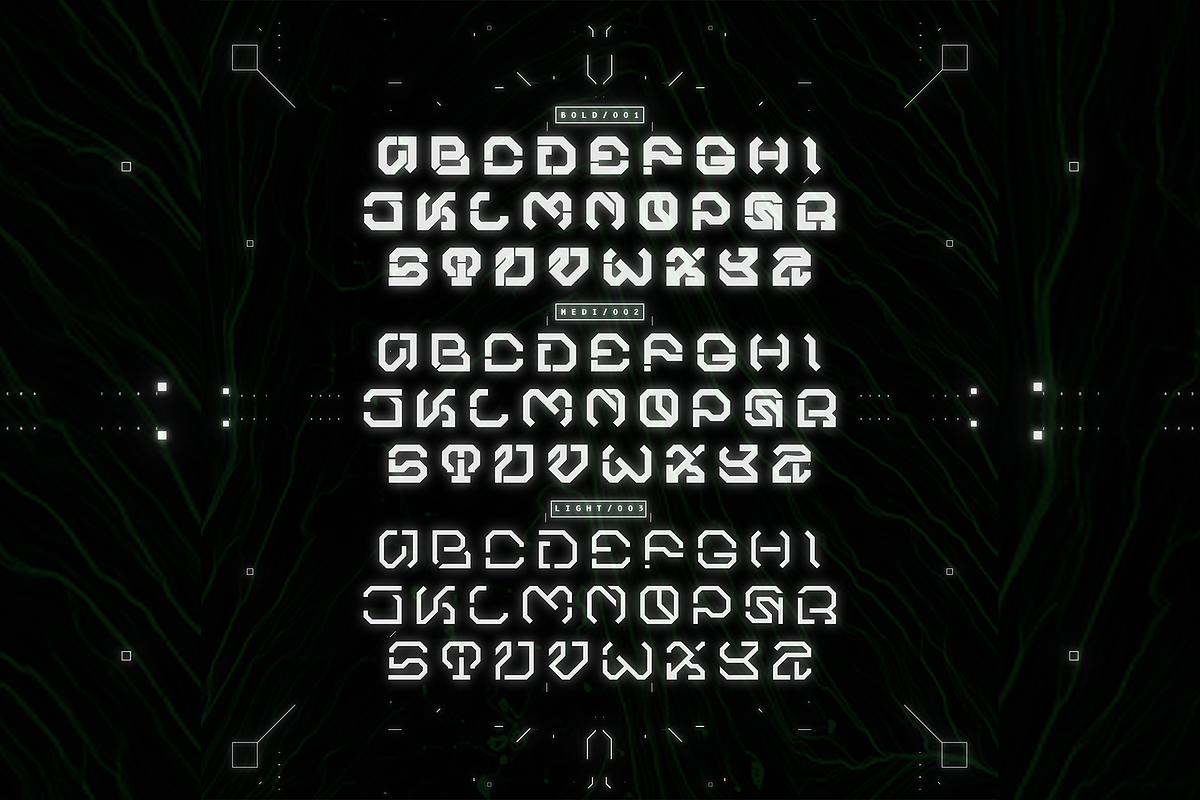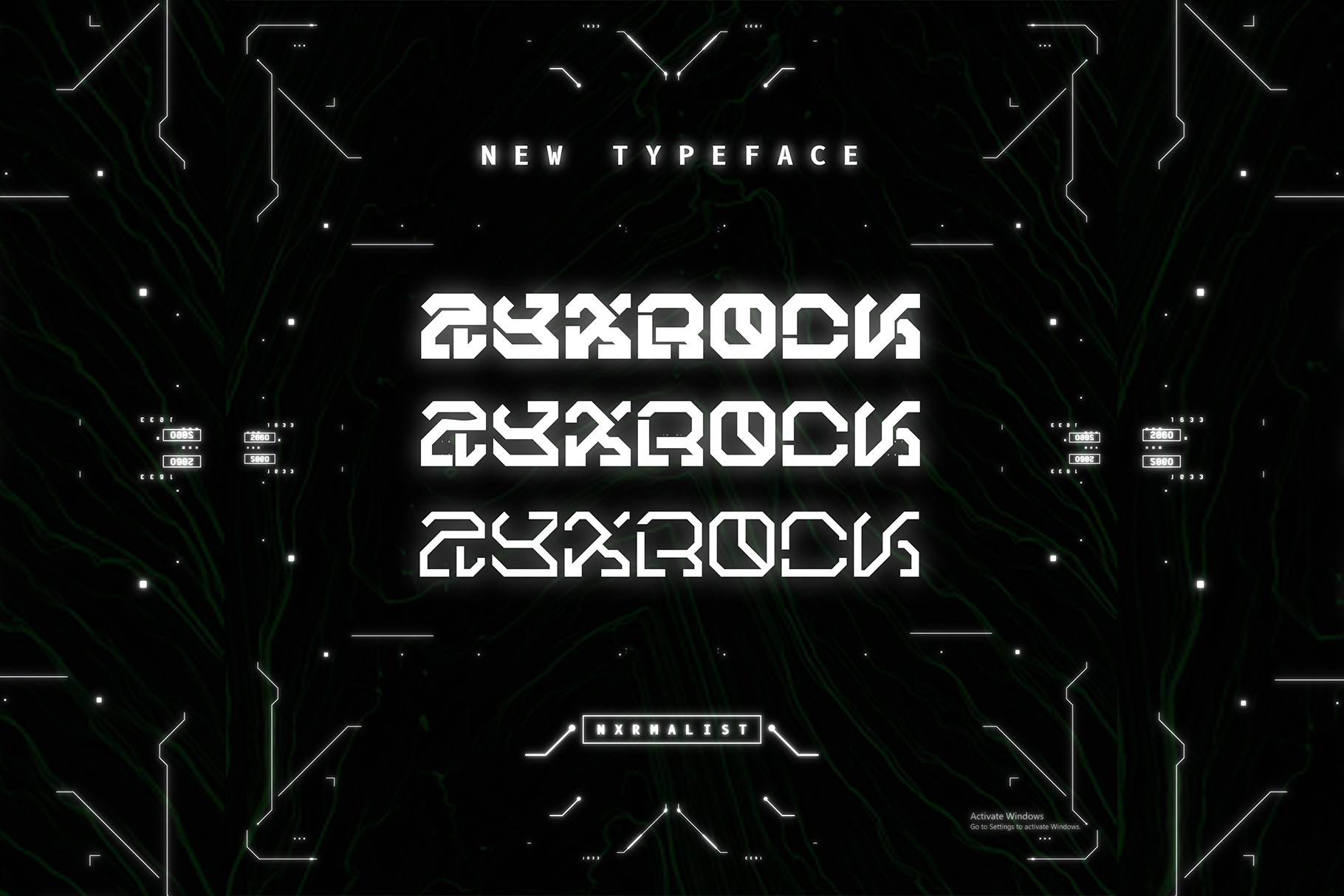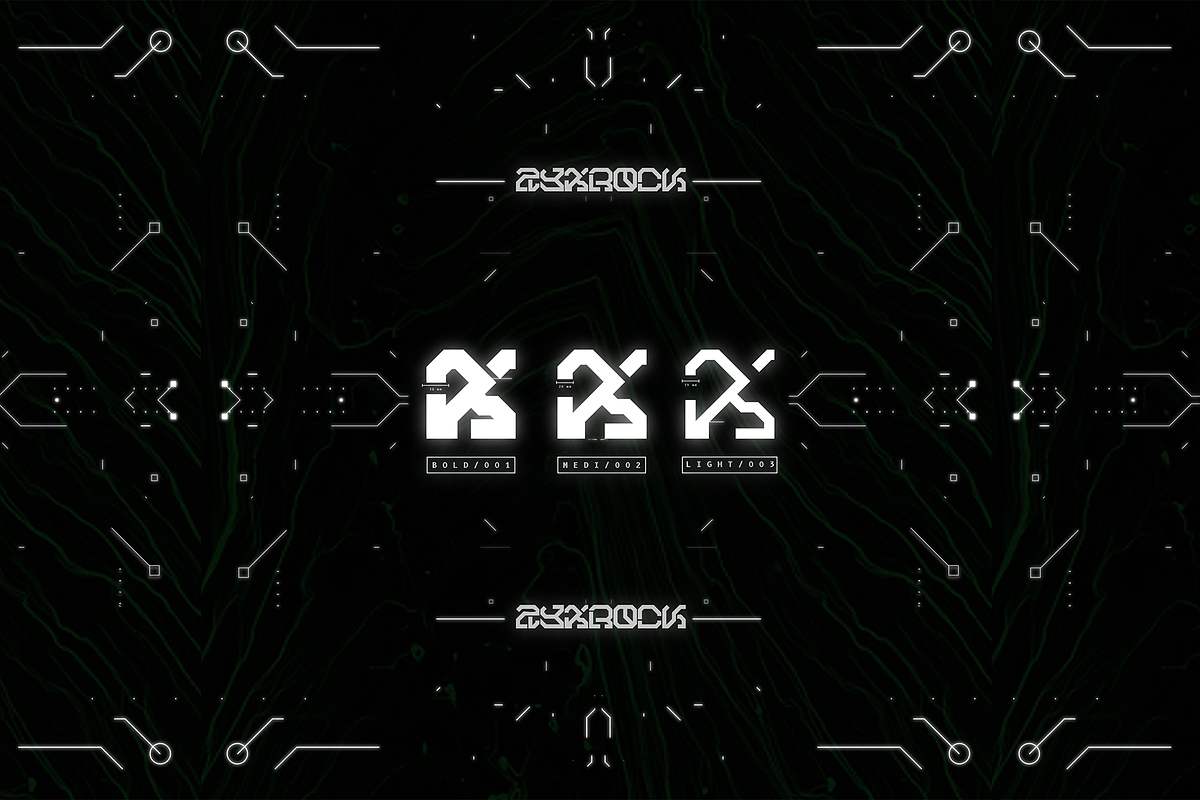
ZYXROCK TYPEFACE // FONT
The ZYXROCK Typeface is a display font made by Indonesian designer NXRMALIST. It is a futuristic font that comes in 3 different weights.